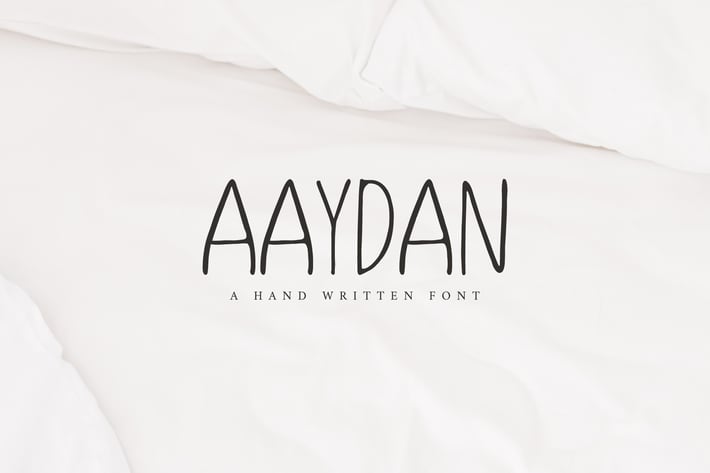
Aaydan Handwritten Font
Aaydan is a sober, cool and simple sans serif font with complex personality for your next projects. It contains complete basic glyphs with multilingual support. Aaydan will be perfect for packaging, presentations, logo, headlines, lettering, posters, branding, quotes, titles, magazines headings, web layouts, advertising, invitations, packaging design, books, and nearly any creative design.
Aaydan Font Features:
- Uppercase Letters
- Lowercase Letters
- Non English Characters ( Latin Supplement + Latin Extended A)